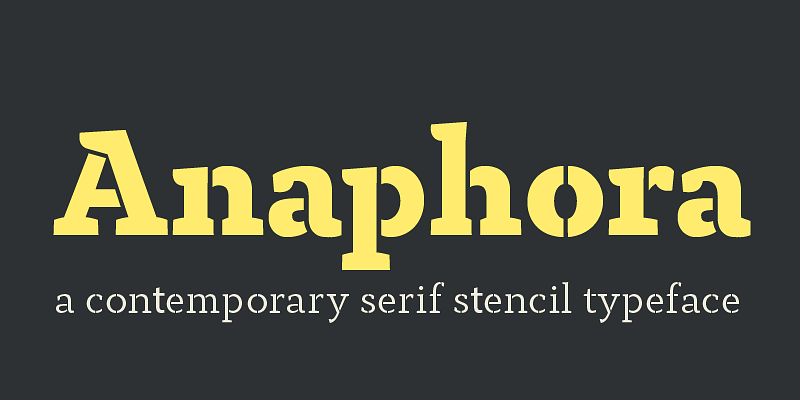
Anaphora Stencil Font Free Download is a bold and distinctive stencil-style typeface that combines modern design with a touch of industrial aesthetics. Featuring sharp, clean lines with well-defined breaks in the letterforms, this font is perfect for creating strong, eye-catching designs in areas such as branding, advertising, posters, and product packaging. Its unique appearance is ideal for projects that need to make a statement.
The Anaphora Stencil Font is versatile and works well across both digital and print media. Its bold stencil design offers a rugged yet stylish look that stands out, making it a great choice for designs with an edgy or utilitarian feel. Whether used in headlines, logos, or graphic design, this font grabs attention while maintaining readability.